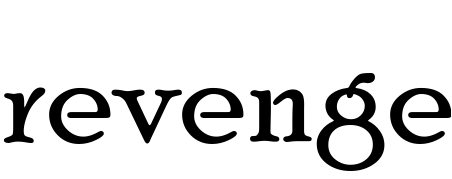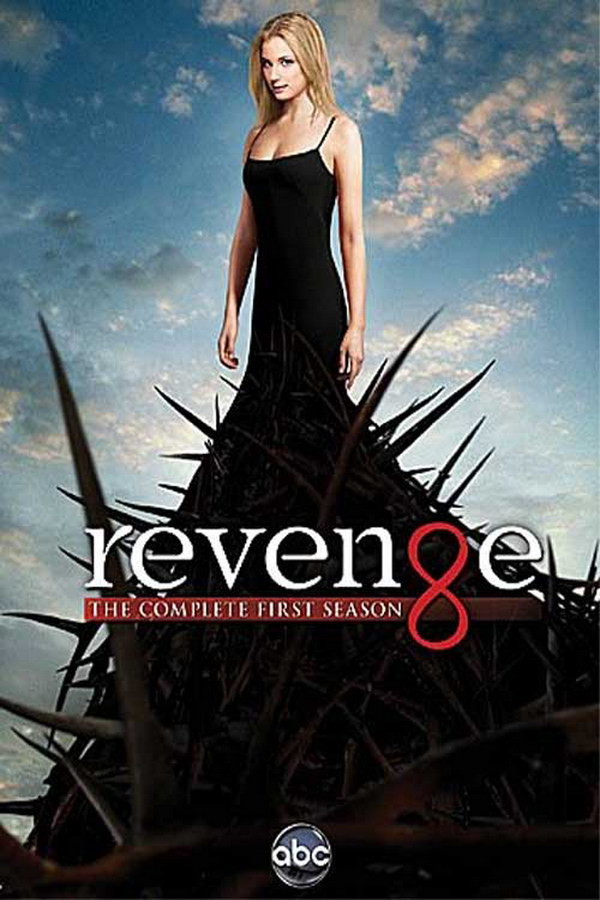
Revenge Font
DramaRevenge is a TV drama series that follows Emily Thorne, a young woman who seeks revenge against those who wronged her family by infiltrating high society in the Hamptons and using manipulation and sabotage to take down her enemies.
It is likely that the TV series title was created using Poor Richard RR Light by Paul Hickson as a basis, with alterations made to the letter "g". Further information regarding this can be found here.